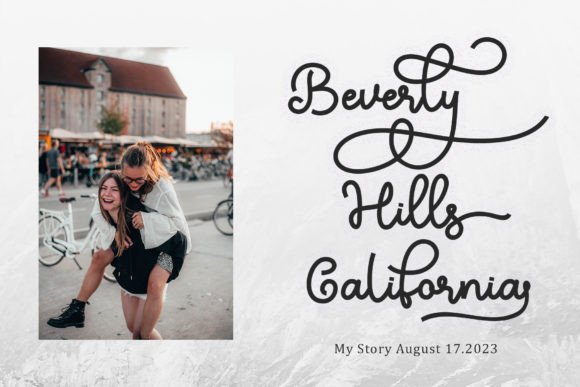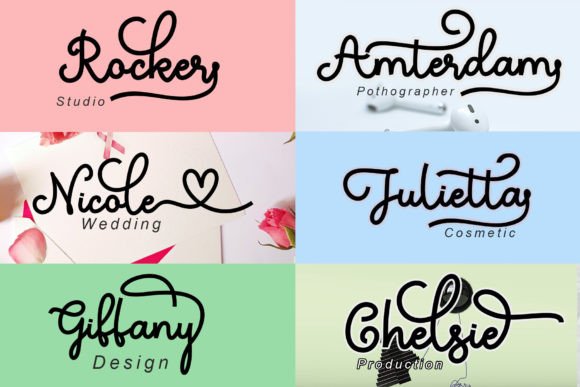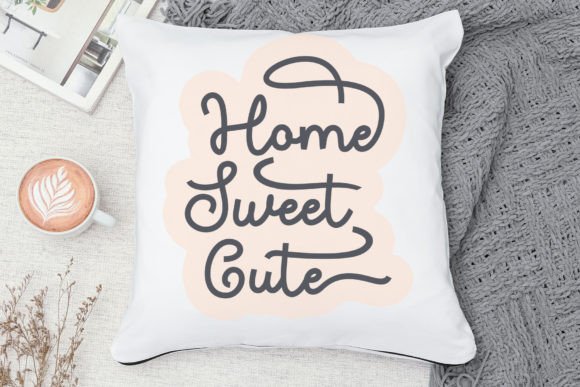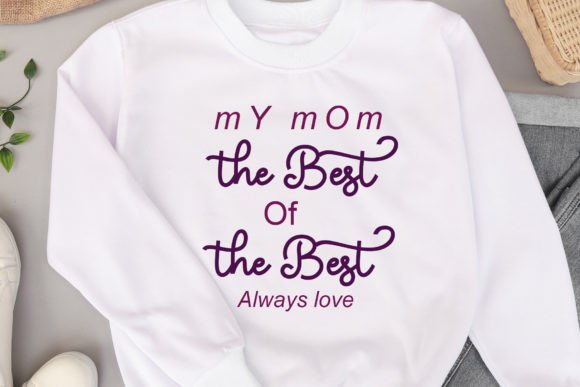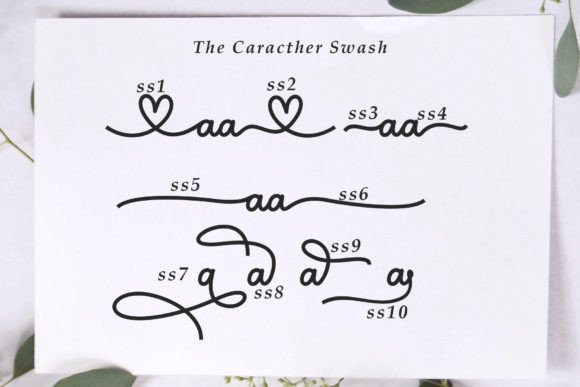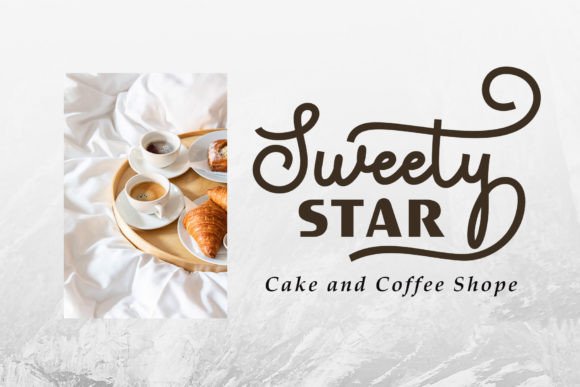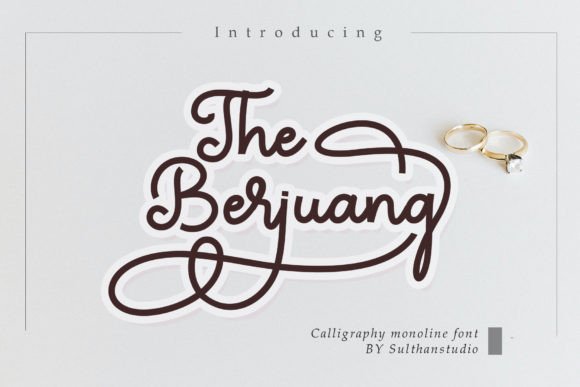
The Designer’s Delight: Berjuang Font
Have you ever been in the middle of a design project, and suddenly, you’re stuck on finding the perfect font? I recall a recent experience where a client asked for a logo that exuded elegance and playfulness. After scouring through numerous font options, I stumbled upon Berjuang Font, and it was love at first sight! In this article, I’ll share my journey with Berjuang Font, its features, and how to make the most of it in your designs.
A Personal Review: What I Love About Berjuang Font
Berjuang Font is a lovely and timeless handwritten font that has become a staple in my design toolkit. Here are some features that I adore:
• ✨ Unique and beautiful touch: Every letter has a distinct character that adds a personal touch to your designs.
• ✅ Eye-catching: Berjuang Font is perfect for creating logos, branding, and quotes that grab attention.
• 💫 Timeless: The font’s classic feel ensures it won’t go out of style anytime soon.
While Berjuang Font is an excellent choice, there are a few minor quirks to consider:
• ⚠️ Occasional kerning issues: As with any font, you might encounter kerning issues; however, these can be easily adjusted in most design software.
The Story Behind Berjuang Font
Berjuang Font was created with the intention of crafting a timeless, handwritten font that would add a personal touch to designs. The designer aimed to create a font that would be both elegant and playful, making it suitable for a wide range of projects. Although the designer’s story might be shrouded in mystery, their creation has left a lasting impact on the design community.
What makes Berjuang Font unique? Berjuang Font’s distinct character and beautiful touch set it apart from other fonts.
Does Berjuang Font support OpenType features? Yes, Berjuang Font supports OpenType features, including ligatures, stylistic alternates, and glyphs.